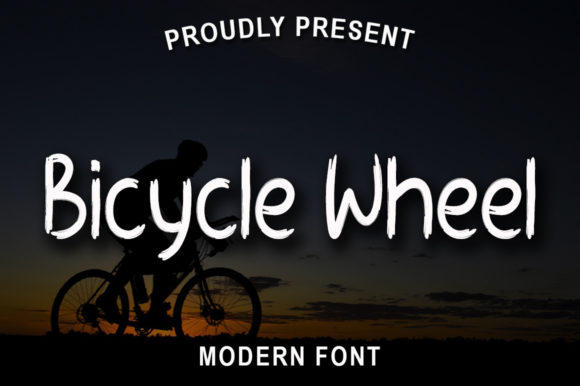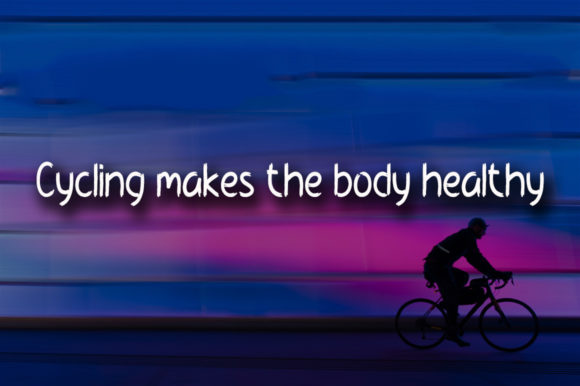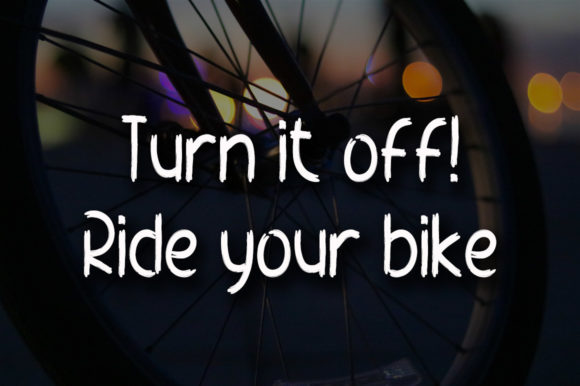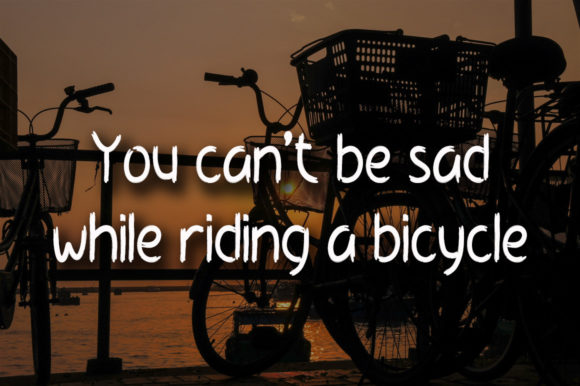
Bicycle Wheel Font
About Bicycle Wheel Font
Bicycle Wheel is a casual and chic handwritten font. Featuring characters that dance along the baseline, this font will add a luxury spark to any design project that you wish to create!